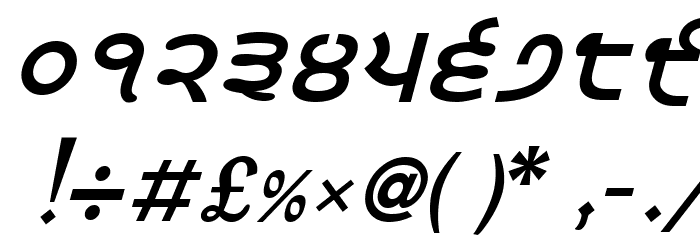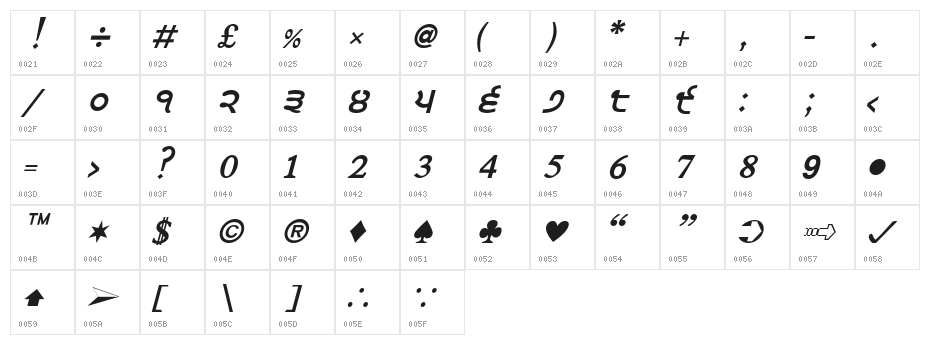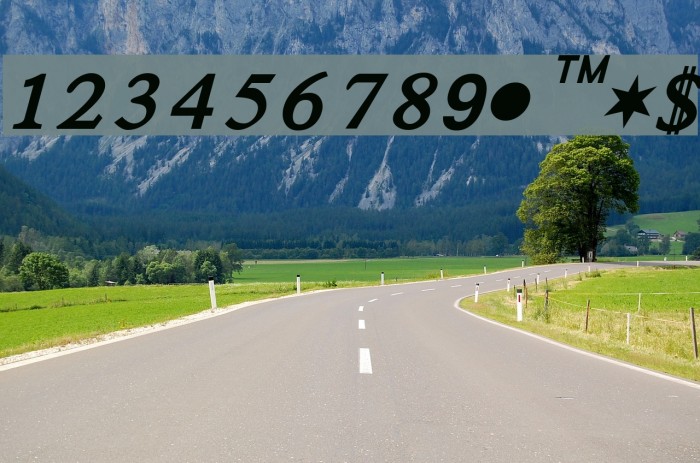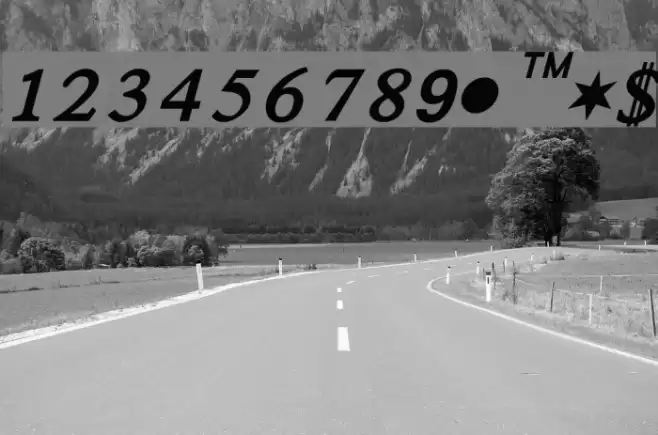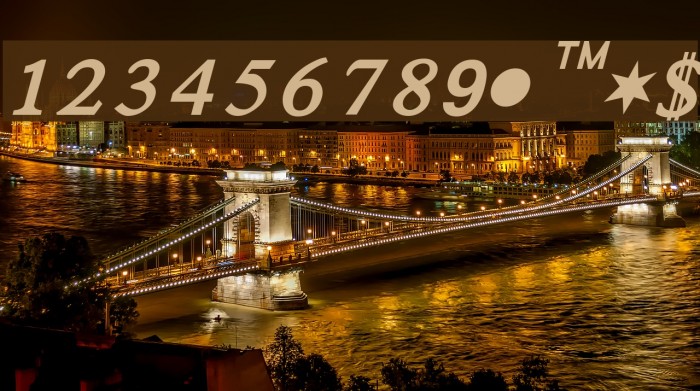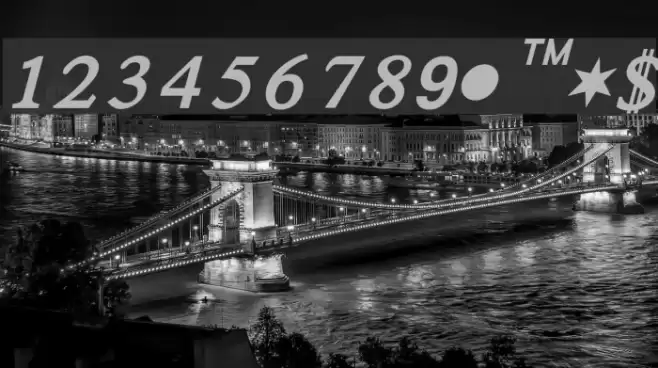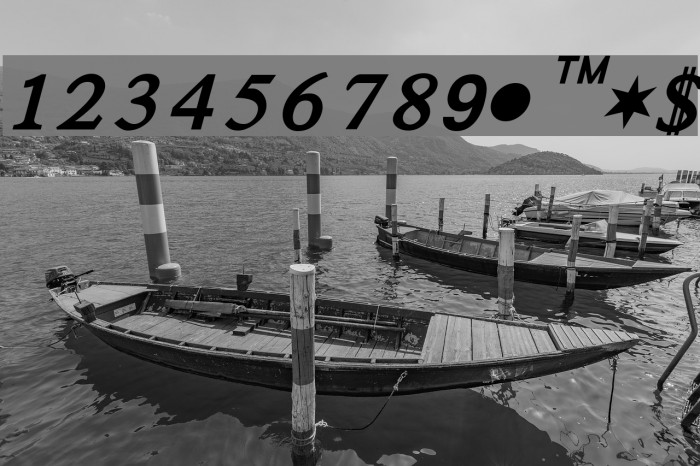
Satluj BoldItalic Font
Satluj BoldItalic Description
This font exhibits a bold and italicized style with a dynamic and energetic appearance. The characters are slightly slanted, giving a sense of motion and fluidity. The numerals are distinct and clear, maintaining readability while adding a touch of flair. Special characters and symbols are designed with a playful yet sophisticated touch, making them suitable for a variety of creative applications. The overall design is modern and eye-catching, with a strong emphasis on boldness and style.
| Proposed Projects | Ideal for branding, advertising, and creative projects that require a bold and stylish typeface. |